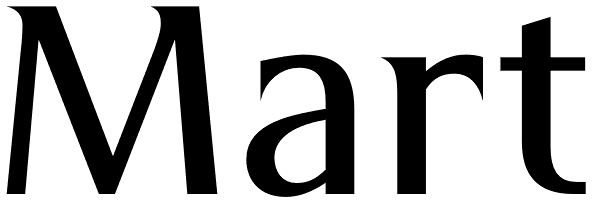
Mart
Mart is a semi serif font family. The main goal of the development was the creation of crisp, laconic and elegant outlines of the characters. It is intended to be used in headlines and text block in the appropriate magazines and printed materials...